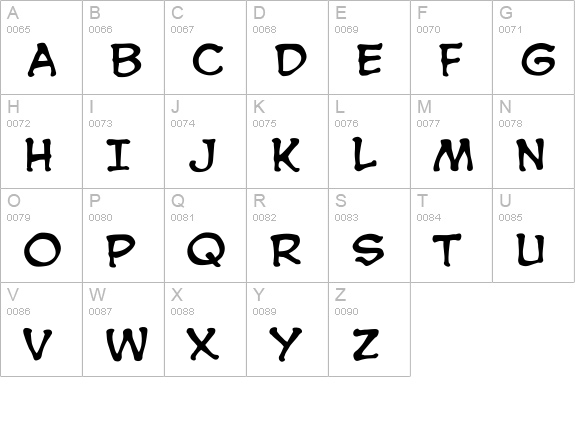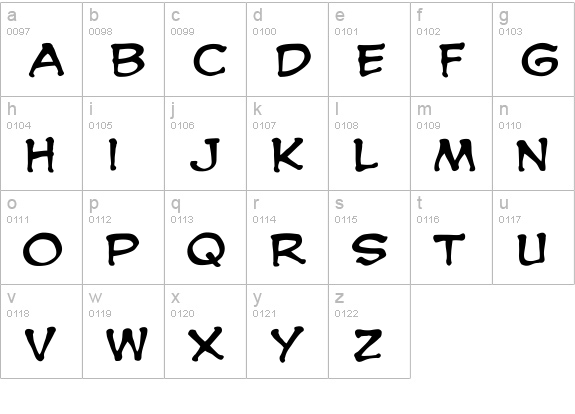
CCSpookytooth-Regular is the standard, neutral variant in the CCSpookytooth typeface family \xE2\x80\x94 well suited to general body text, paragraphs, and standard typographic work.
CCSpookytooth-Regular font is a whimsical and playful typeface perfect for adding a touch of spookiness to your creative projects. With its fun and quirky design, this font is ideal for Halloween-themed designs, children's books, posters, and more. The playful curves and unique character shapes make CCSpookytooth-Regular a standout choice for adding a touch of personality to your designs. Best of all, CCSpookytooth-Regular font is available for free download at FontsMarket.com. You can easily access this font and start using it in your projects right away, without any cost. Whether you're a designer looking to add a fun and spooky element to your work, or simply looking for a unique font to enhance your projects, CCSpookytooth-Regular is a fantastic choice that won't break the bank. Download it today and let your creativity run wild with this charming and free font.